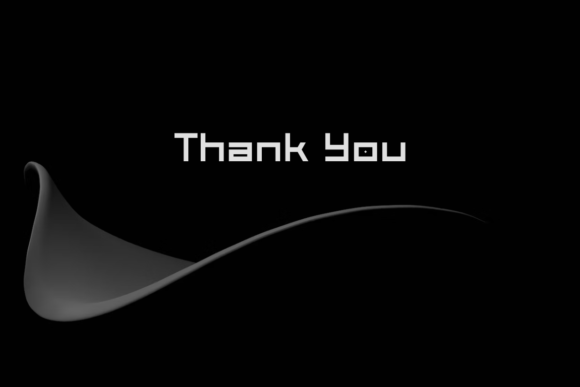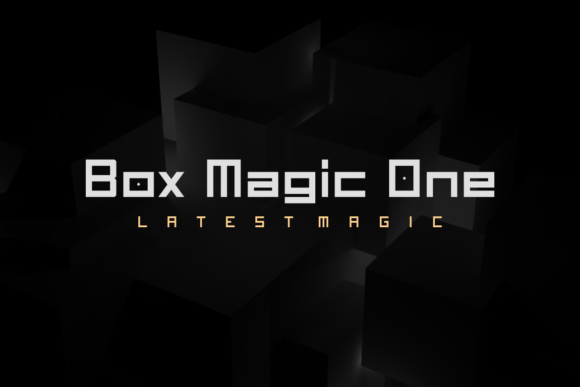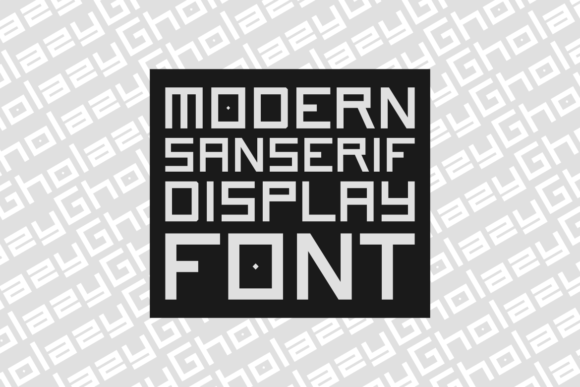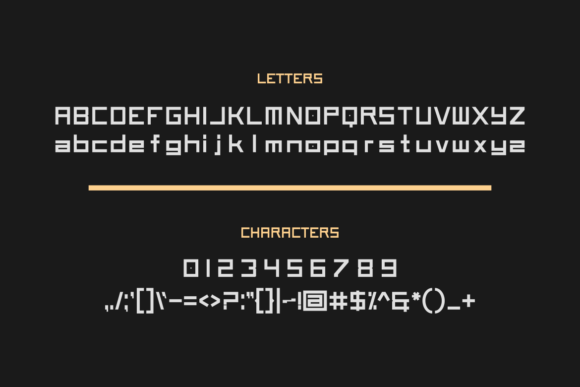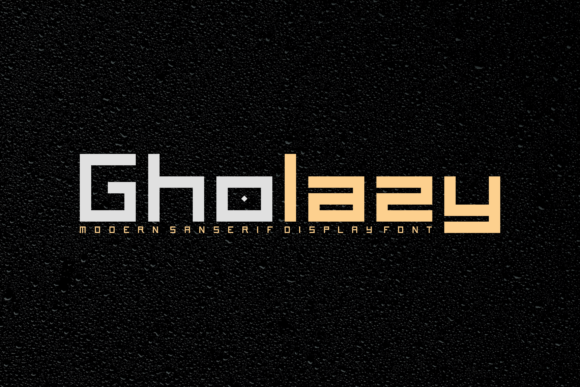
Gholazy Font: Elevate Your Designs with a Bold and Assertive Sans Serif
In the world of typography, fonts play a crucial role in conveying messages, expressing emotions, and creating visual identities. For designers and crafters, having the right font in their arsenal can make all the difference in elevating their creations from ordinary to extraordinary. This is where Gholazy Font comes in – a bold and assertive sans serif font that is poised to become an incredible asset to your fonts’ library.
The Power of Gholazy Font
Gholazy Font is a sans serif font that exudes confidence and assertiveness. Its bold and clean lines make it perfect for a wide range of applications, from headlines and titles to logos and branding materials. Whether you’re working on a print project, a digital design, or a web page, Gholazy Font is sure to make a statement. Its versatility and flexibility make it an excellent choice for designers who want to create visually striking and cohesive designs.
Key Features of Gholazy Font
- Bold and Assertive: Gholazy Font is designed to grab attention and make a statement. Its bold and assertive style ensures that your message is conveyed with clarity and impact.
- Sans Serif: The clean and minimalist lines of Gholazy Font make it perfect for modern designs that require a sleek and contemporary look.
- Versatile: Gholazy Font can be used for a wide range of applications, including print, digital, and web designs.
- Easy to Read: Despite its bold style, Gholazy Font is easy to read, making it perfect for body text and captions.
Why Choose Gholazy Font?
With so many fonts available, why choose Gholazy Font? Here are a few compelling reasons:
- Unique and Distinctive: Gholazy Font has a unique and distinctive style that sets it apart from other fonts.
- High-Quality: Gholazy Font is designed with high-quality and precision, ensuring that it looks great in any size or resolution.
- Time-Saving: With Gholazy Font, you can save time and effort in finding the perfect font for your project.
How to Use Gholazy Font
Using Gholazy Font is easy and straightforward. Here are a few tips to get you started:
- Headlines and Titles: Use Gholazy Font for headlines and titles to grab attention and create visual impact.
- Logos and Branding: Use Gholazy Font for logos and branding materials to create a bold and assertive visual identity.
- Body Text: Use Gholazy Font for body text and captions to add a touch of modernity and sophistication.